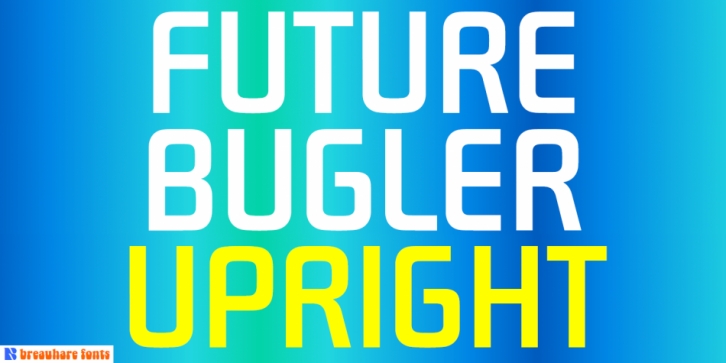
Designed by Harry Warren, Future Bugler Upright is a sans serif font family. This typeface has three styles and was published by Breauhare Fonts.
Future Bugler Upright is a non-slanted version of Future Bugler, a font based on the second logo created by Harry Warren in early 1975 for his sixth grade class newsletter, The Broadwater Bugler, at Broadwater Academy in Exmore, Virginia, on Virginia’s Eastern Shore.
This font can convey several perspectives or moods. It can suggest a space-age vision of the future, or an art-deco perspective of the future as in the movie “Sky Captain and the World of Tomorrow”. It also communicates the idea of high performance, or extreme sports, without the grunge.
This font family was digitized by John Bomparte.